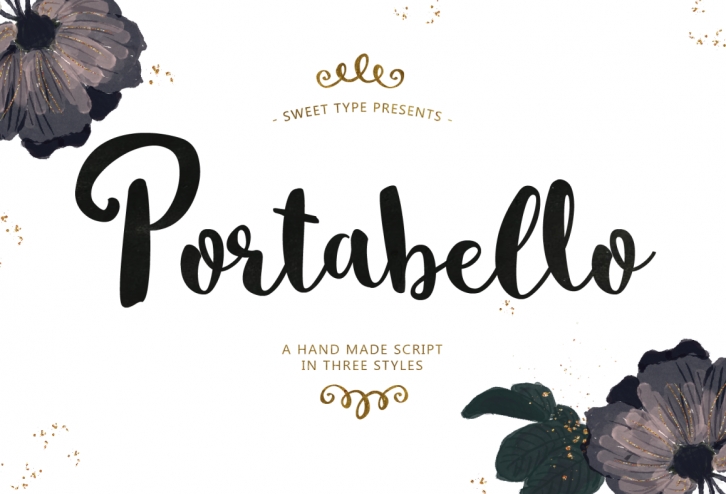
Portabello Script is a trendy and unique font with an authentic style. It was designed by Emily Spadoni and it's a great choice for creative people who need such a font. It was released on April 18, 2017 and the file size is 9.3 MB. Portabello Script will add an organic vibe to any design idea!